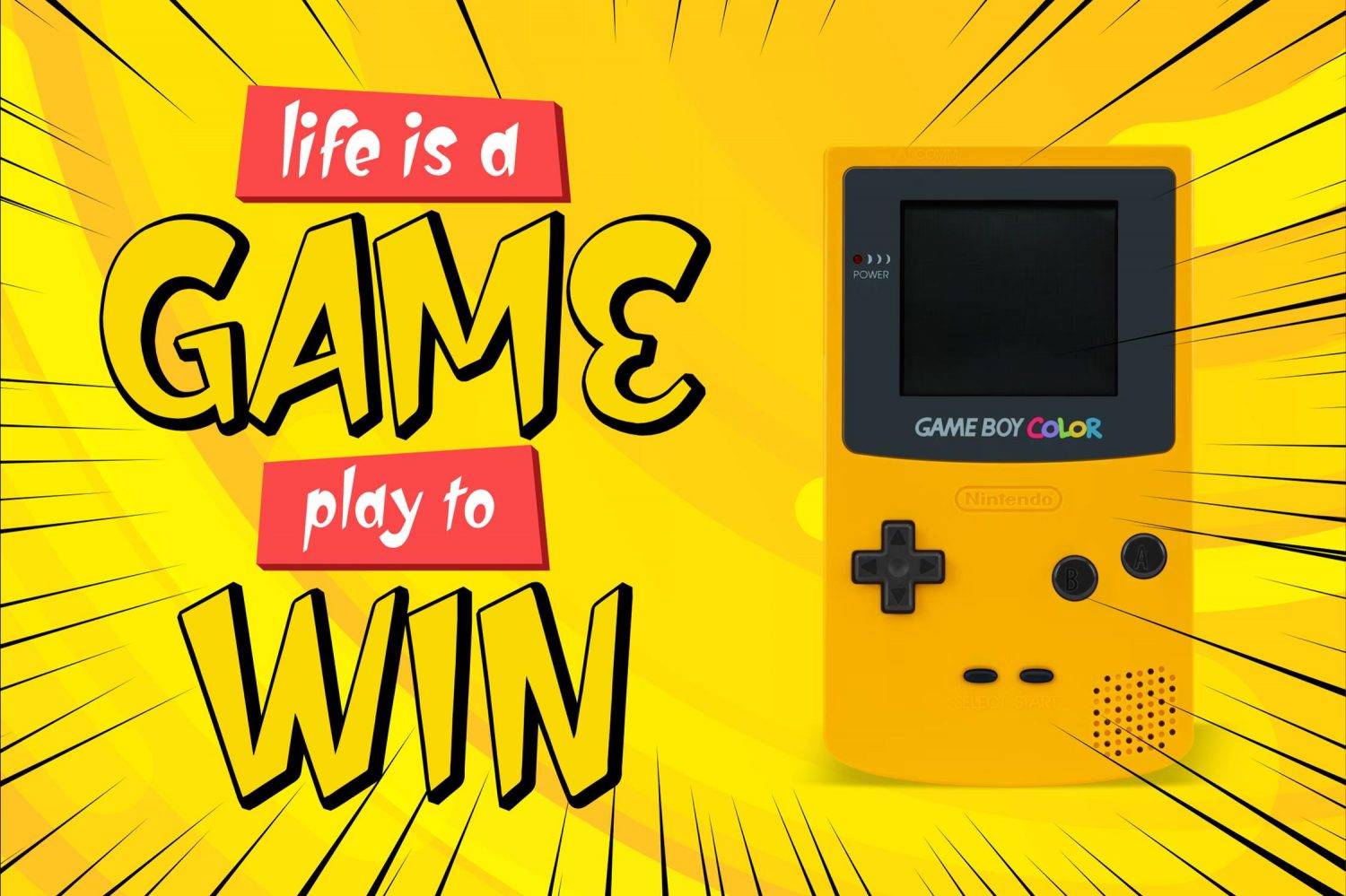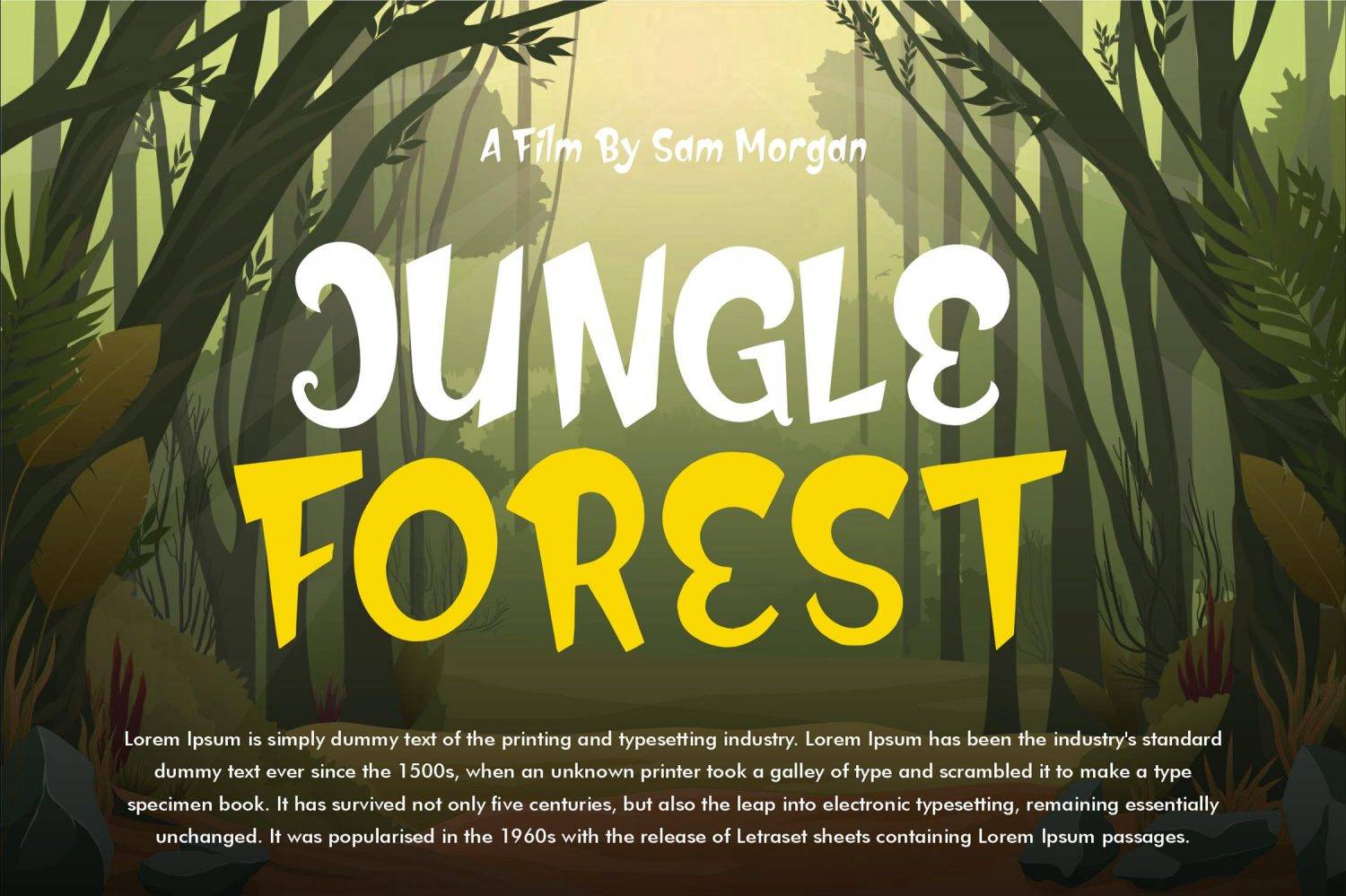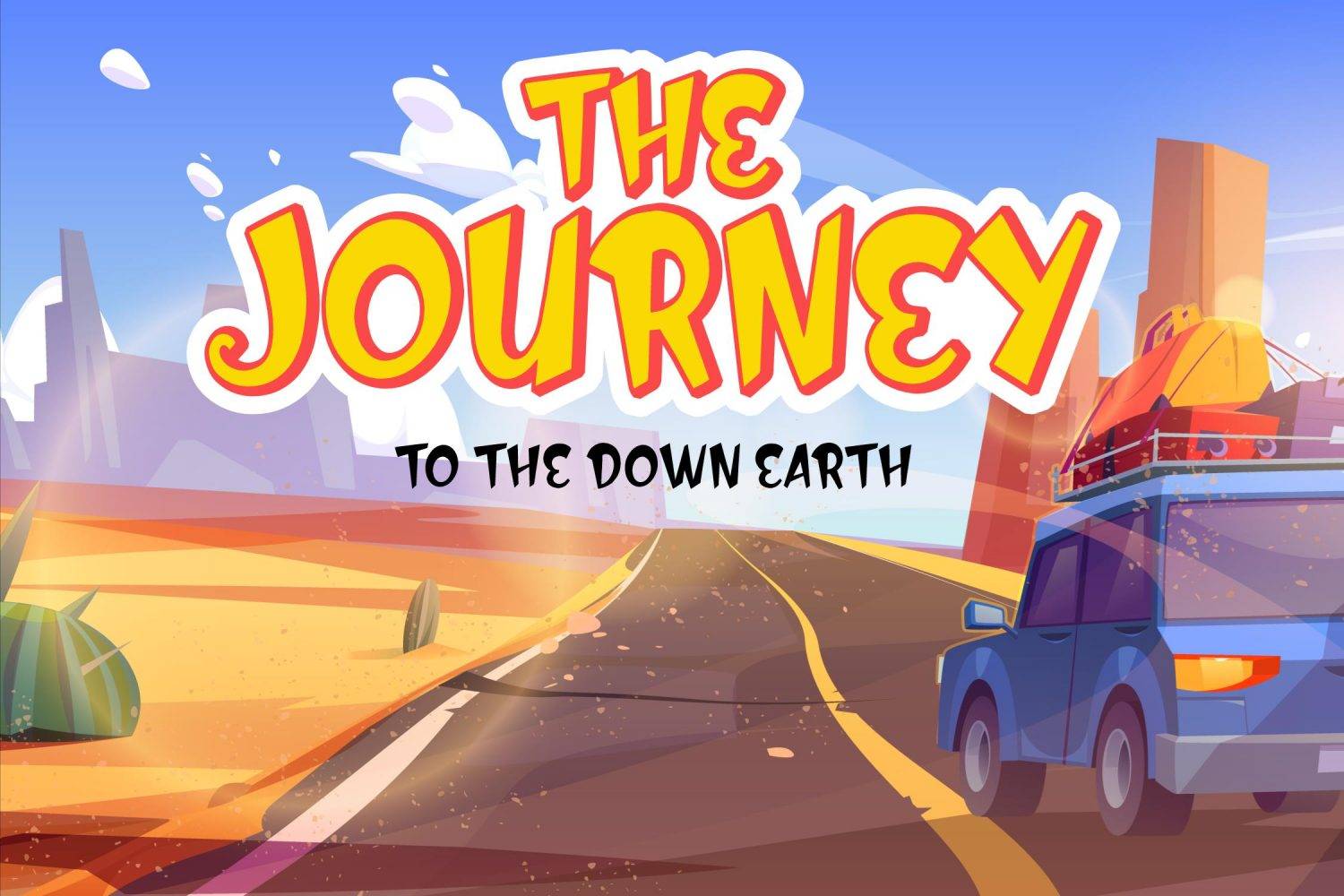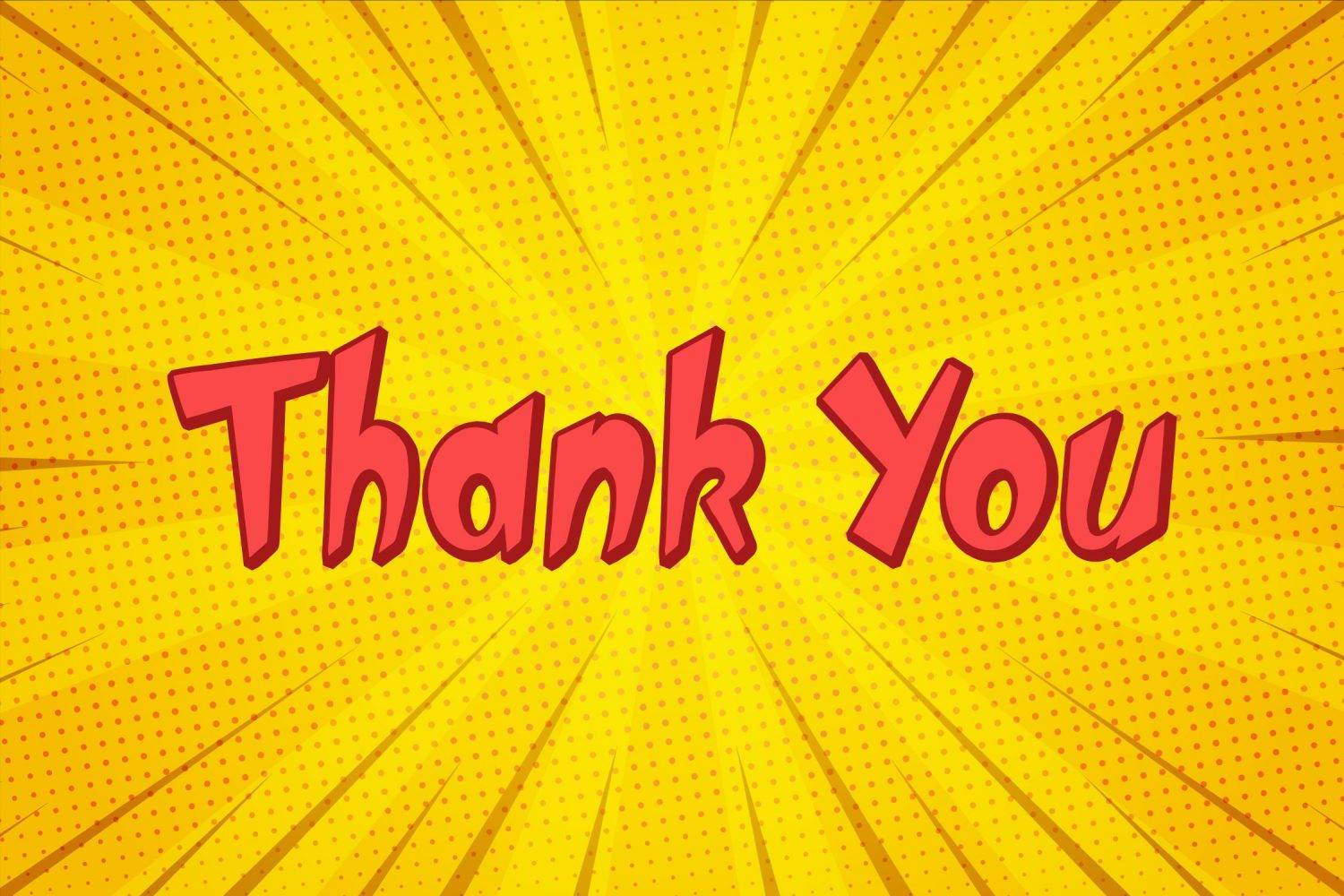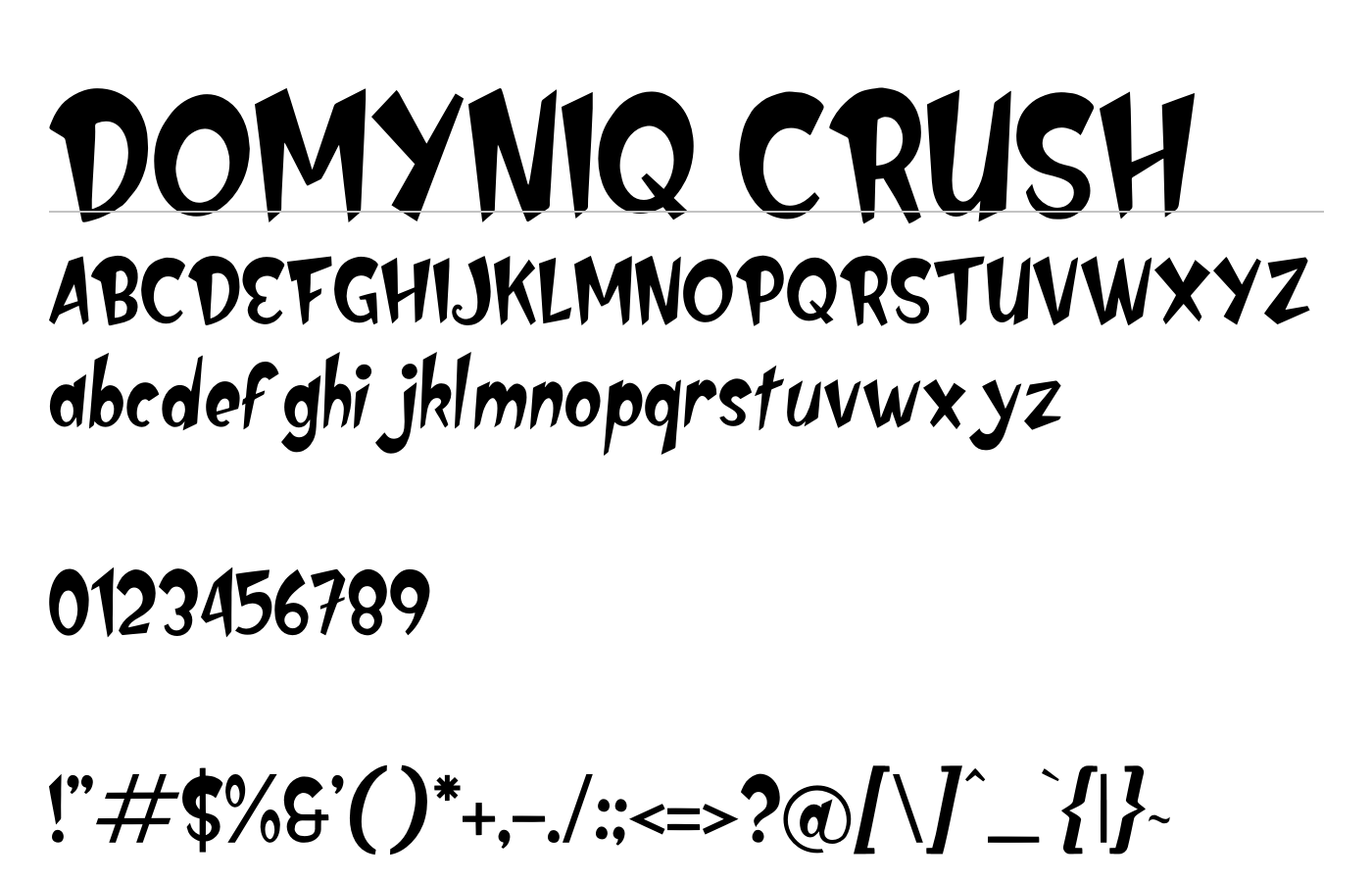
Domyniq Crush is a bold, playful display font with irregular, exaggerated shapes that give it a quirky, energetic personality. Its sharp, jagged edges and uneven stroke widths create a fun, informal feel perfect for eye-catching headlines, posters, or branding projects that want to convey creativity and cheerfulness. This font works best in lively, youthful designs where a distinctive, hand-crafted look is desired.
Domyniq Crush Font
About Domyniq Crush Font